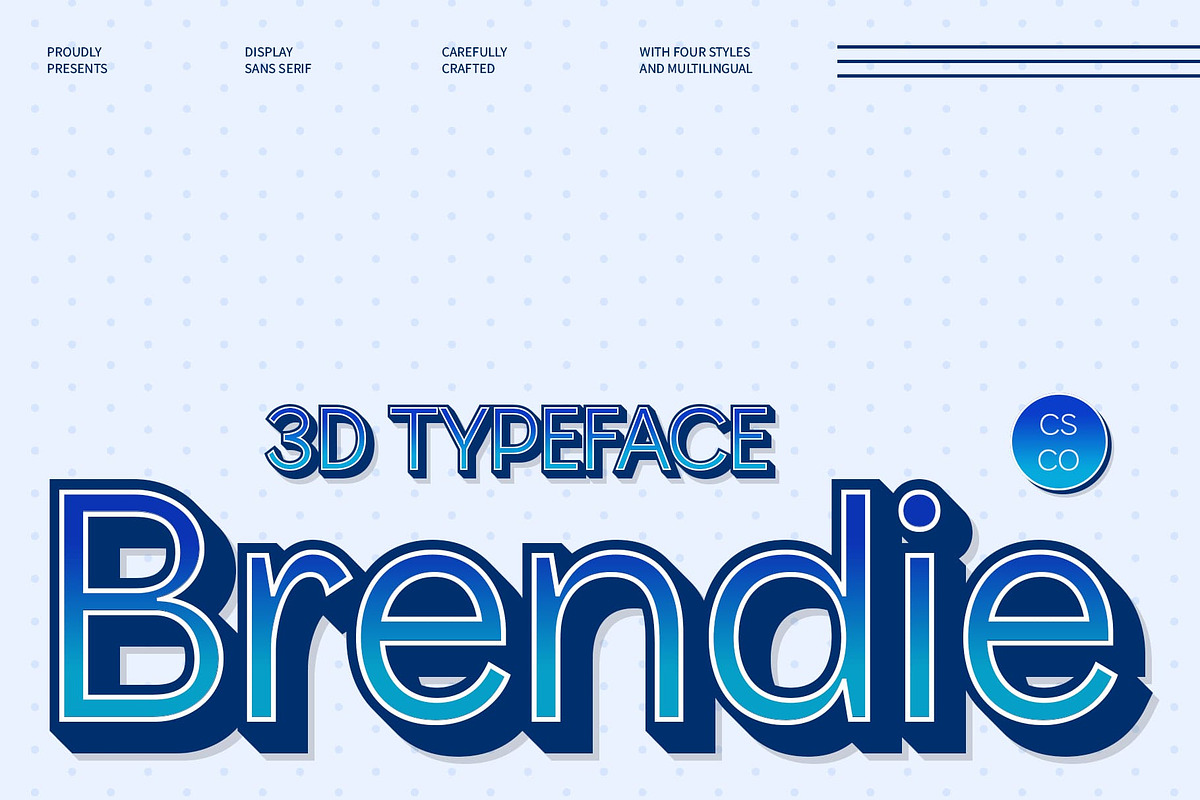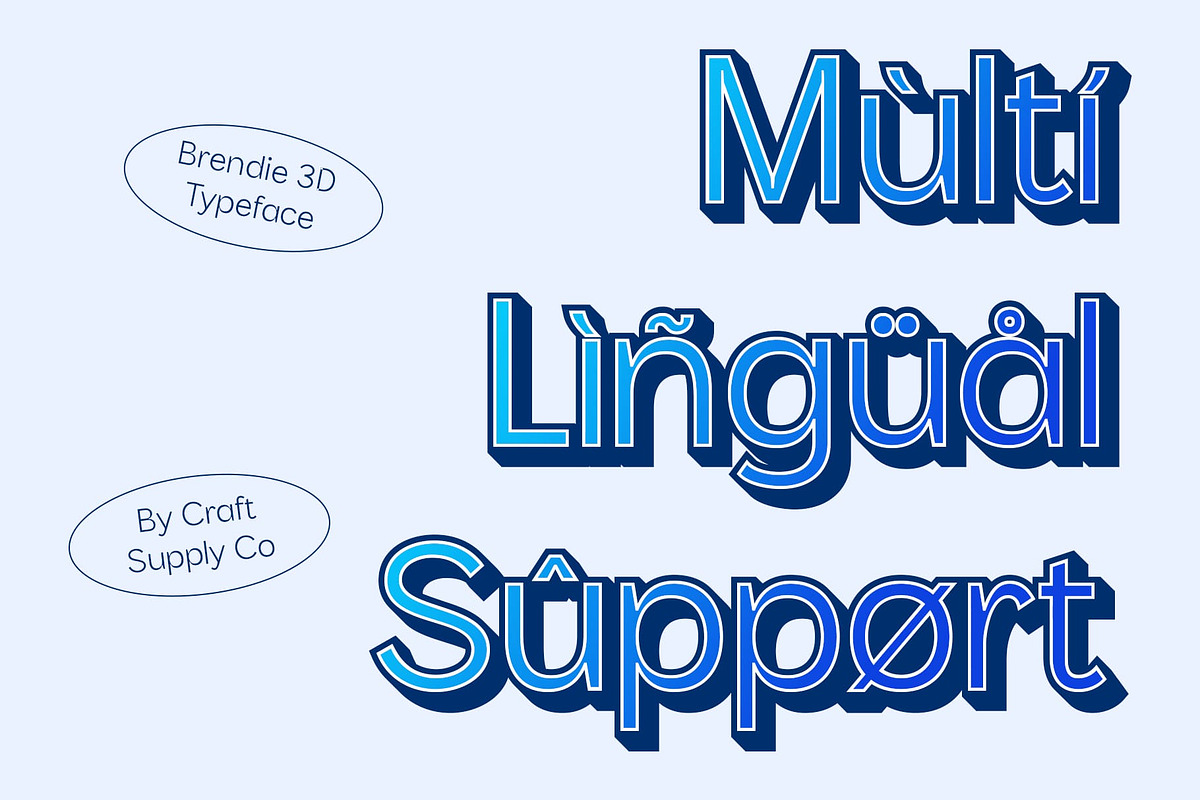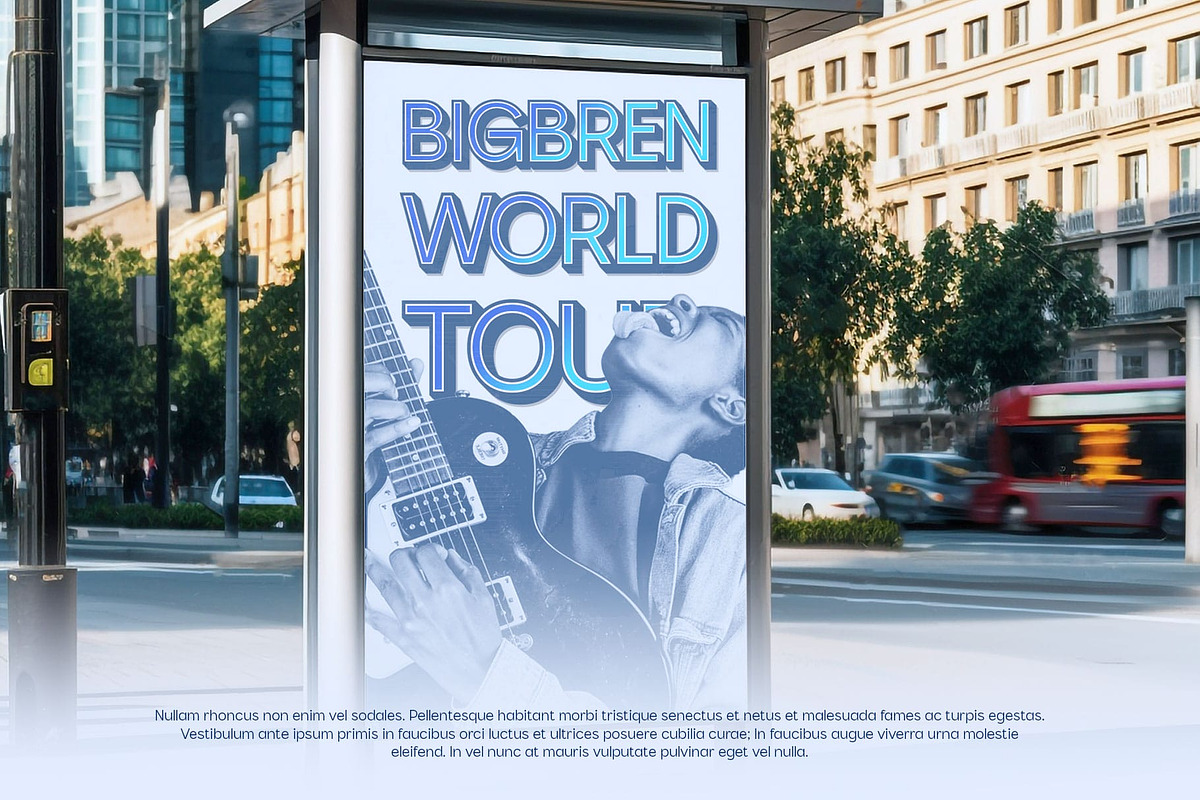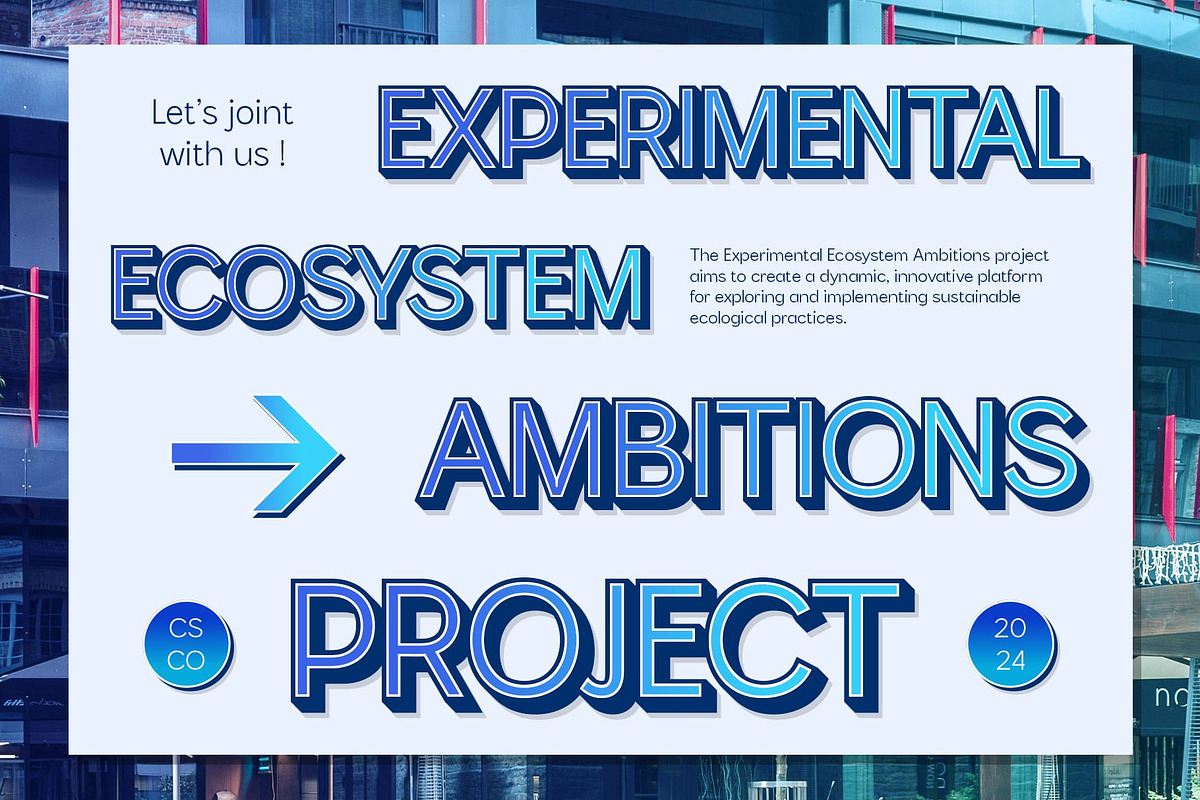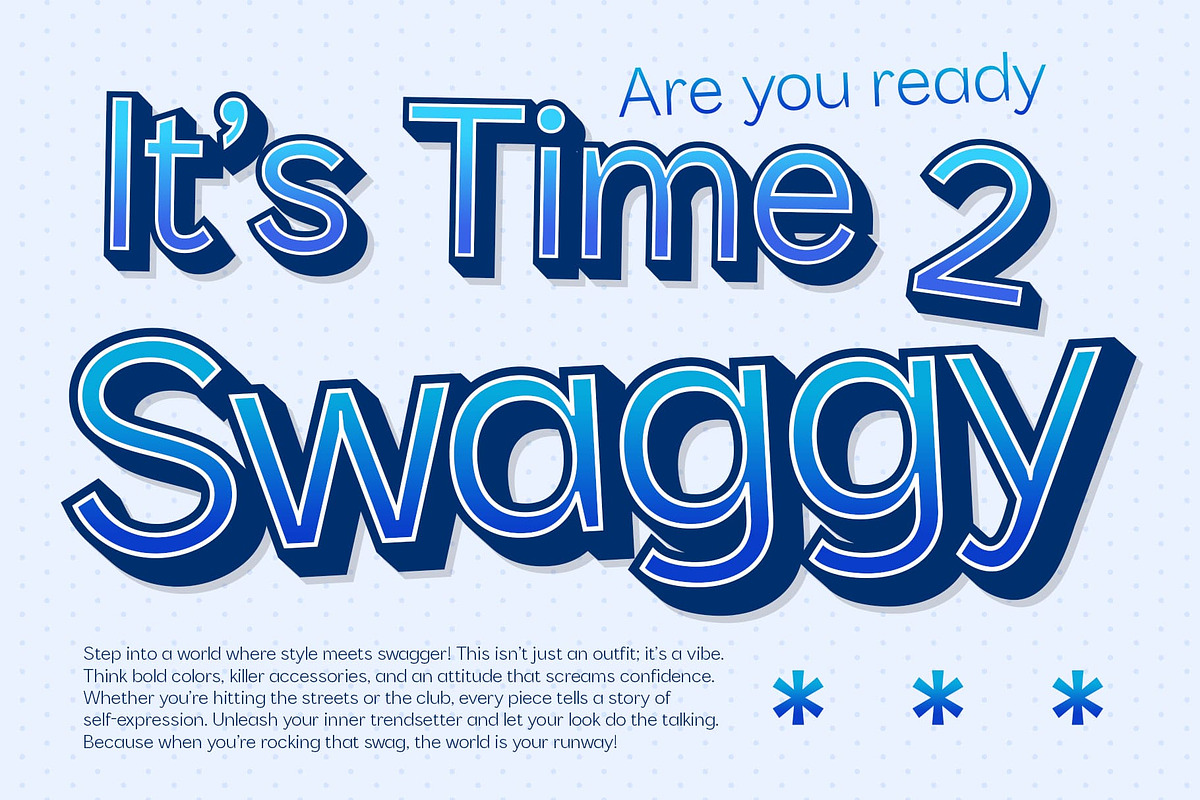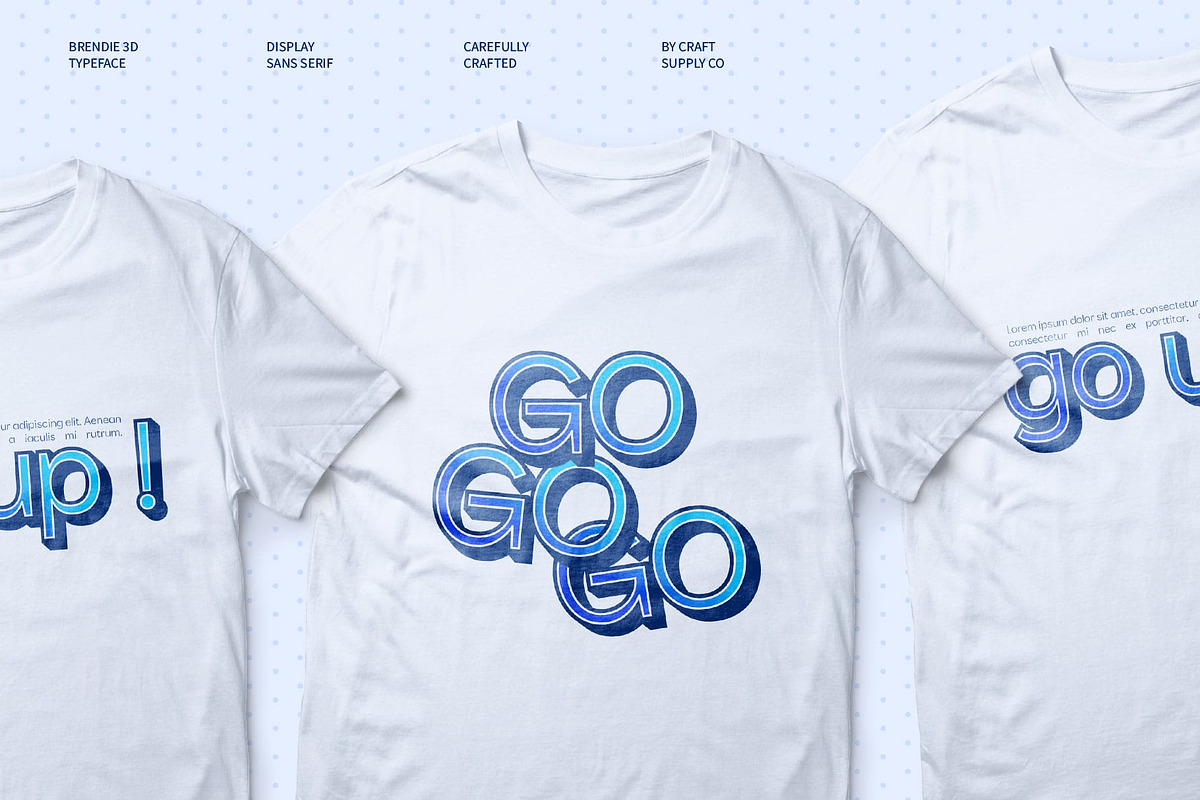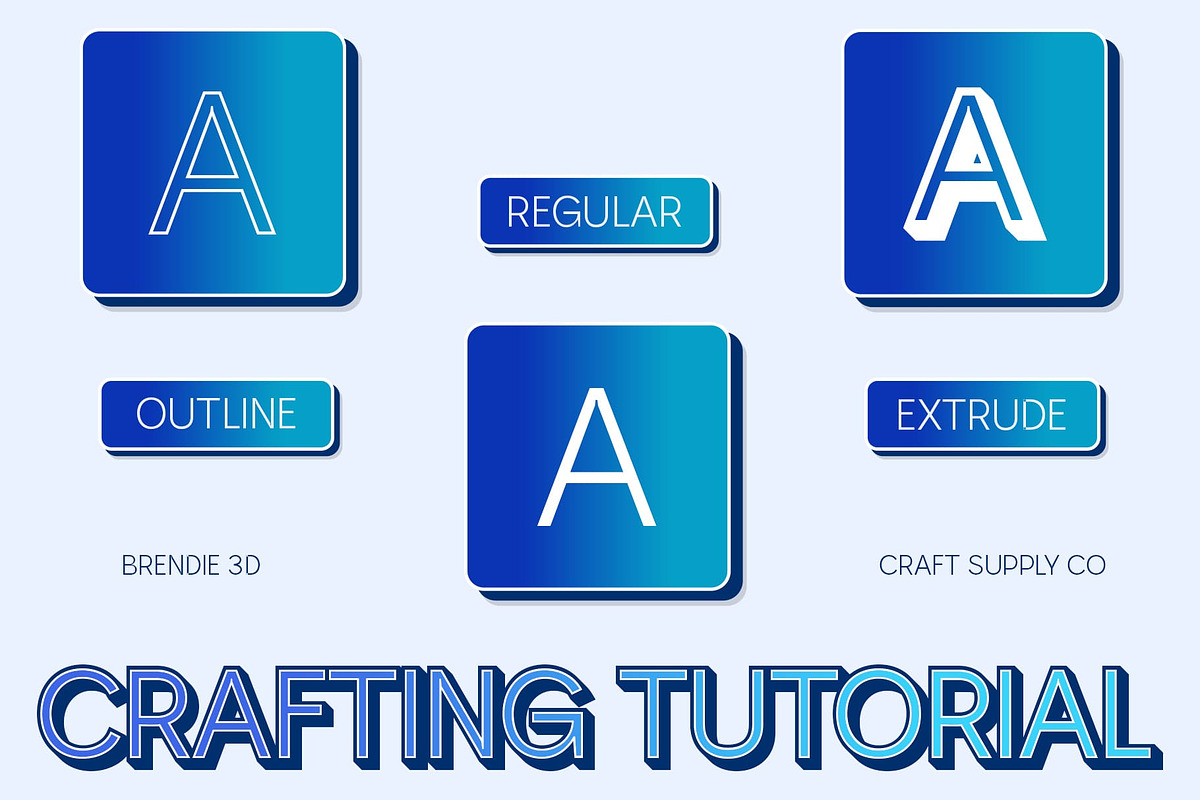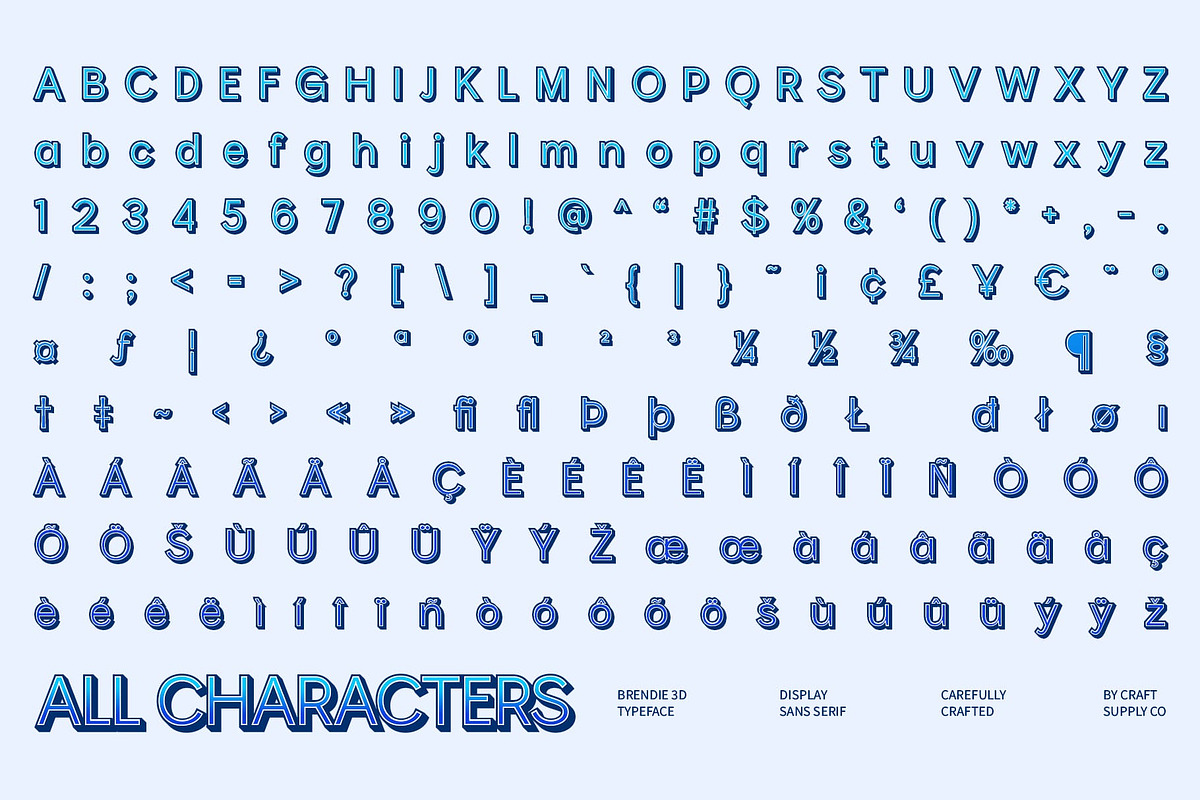
Brendie 3D
Brendie 3D Font: Bold, Geometric, and Contemporary
Modern Sans-Serif with Geometric and Grotesque Forms Brendie 3D is a modern sans-serif font that combines sharp geometric structure with grotesque elements, creating a clean, precise design that offers a sense of order and neutrality. The geometric forms lend the font a strong, structured appearance, while the grotesque style introduces versatility, making it adaptable to a wide range of design projects. This font stands out with its minimalist elegance and bold statement.
Enhanced with a Striking 3D Effect The addition of a 3D effect takes Brendie 3D to the next level, adding depth and dimension that enhances its visual impact. The three-dimensional quality brings the font to life, giving it a sense of weight and presence. This striking effect makes Brendie 3D ideal for contemporary branding, digital projects, and promotional materials that aim to capture attention with a bold and modern aesthetic.
Versatile for Contemporary Branding and Digital Projects Brendie 3D is perfect for projects that require a modern, clean look with a powerful visual presence. Whether it’s branding, website design, digital media, or posters, the font’s sleek design and 3D effect ensure it stands out in both digital and print formats. Its balanced combination of geometric and grotesque elements offers flexibility, making it a perfect choice for designs that need a bold, impactful statement without sacrificing versatility.